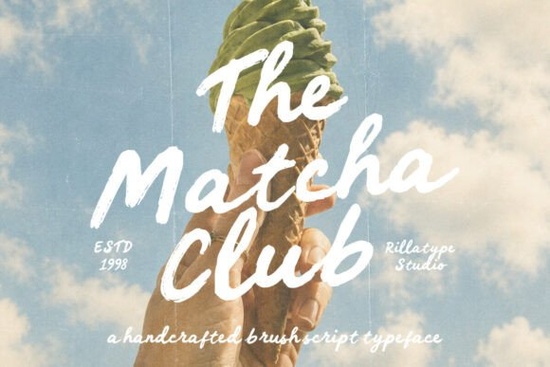
If you're building a café brand, designing drink labels, or putting together packaging for a food business, The Matcha Club Font is a bold handwritten brush typeface worth a close look. It's built around cozy café vibes, retro lifestyle energy, and fresh drink culture the kind of font that immediately feels warm and approachable without losing its punch as a display type.
This font was designed with chunky brush strokes and a natural handwritten flow. The letterforms have personality they're expressive, fun, and eye-catching. Whether you're a designer working on client projects or a small business owner creating your own brand materials, it fills a specific gap: bold, casual typography that still looks professional.
What kind of projects does this brush font work best for?
The Matcha Club is versatile enough for a range of creative projects. Here are some of the most common uses designers and crafters are putting it to:
- Café menus and signage especially for tea shops, matcha bars, and cozy brunch spots
- Logo design for food brands, lifestyle businesses, and indie drink companies
- Product packaging tea boxes, drink labels, snack wrappers, and jar labels
- Merchandise tote bags, mugs, t-shirts, and stickers
- Social media graphics Instagram posts, story templates, and promotional banners
- Posters and flyers event promotions, market posters, and retro-themed layouts
- Print-on-demand products designs that need a handmade, friendly feel
The chunky brush style gives everything a handcrafted quality. It looks like someone actually sat down and painted each letter, which is exactly the kind of texture that connects with audiences today. People respond to typography that feels human, and this font delivers that without looking sloppy.
Is it readable at smaller sizes?
Because of its bold weight and clear letterforms, The Matcha Club holds up reasonably well at medium sizes think subheadings, menu item names, or product label text. That said, it's really designed as a display font. It shines brightest in headlines, logos, and large-format designs where every brush stroke can breathe.
For body text or detailed product descriptions, you'd want to pair it with a clean sans-serif or a simple serif font. This contrast actually makes the brush font stand out more, since it has something quieter to sit next to.
How does it compare to other handwritten fonts?
If you've browsed handwritten fonts before, you know the category is huge. Some are delicate and airy, others are rough and grungy. The Matcha Club sits in a sweet spot it's bold and expressive but still friendly and easy to read. It doesn't try to look elegant or minimal. Instead, it leans into a casual, fun, lifestyle-oriented personality.
For designers exploring different moods, there are other options worth considering. a flowing script alternative could work if your project calls for something more refined and connected. Meanwhile, a playful whimsical option might suit children's branding or party invitations better. And if you need something with a more dramatic, expressive flair, a bold expressive script delivers that energy.
For rustic or nature-themed projects, a natural organic typeface brings a different kind of warmth. But if your brand is rooted in café culture, tea branding, or that cozy retro lifestyle aesthetic, The Matcha Club is hard to beat. It was literally built for that world.
Who is this font really for?
This is a strong fit if you're any of the following:
- A small business owner building a brand identity for a café, juice bar, or food product
- A graphic designer working on packaging or lifestyle branding for clients
- A print-on-demand seller creating drink-themed or retro-styled merchandise
- A crafter or hobbyist making stickers, greeting cards, or party decorations
- A social media manager who needs eye-catching text for food and lifestyle accounts